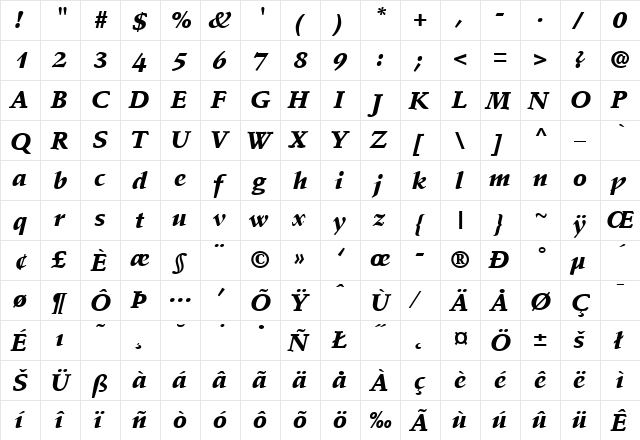
StempSchBlaIta Regular
Design Context for StempSchBlaIta Typeface
StempSchBlaIta offers clean, dependable letterforms without strong stylistic allegiance, making it a practical choice for designers who need flexibility.